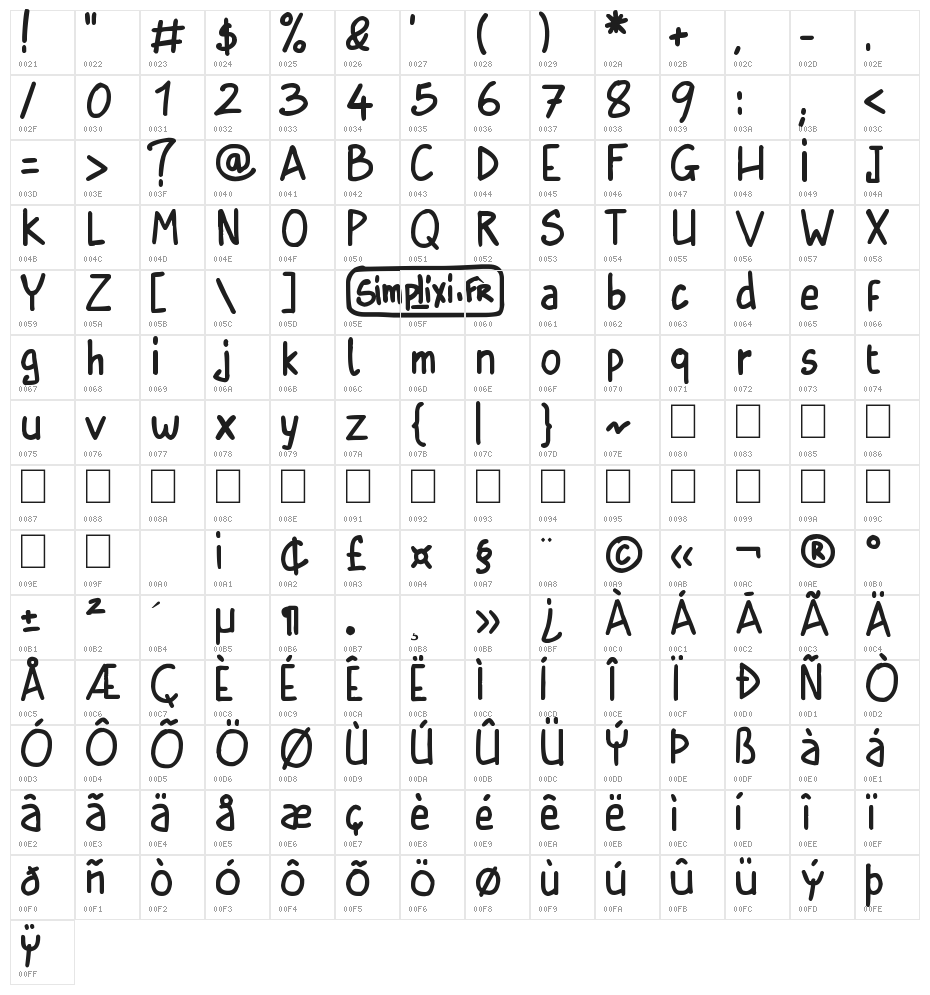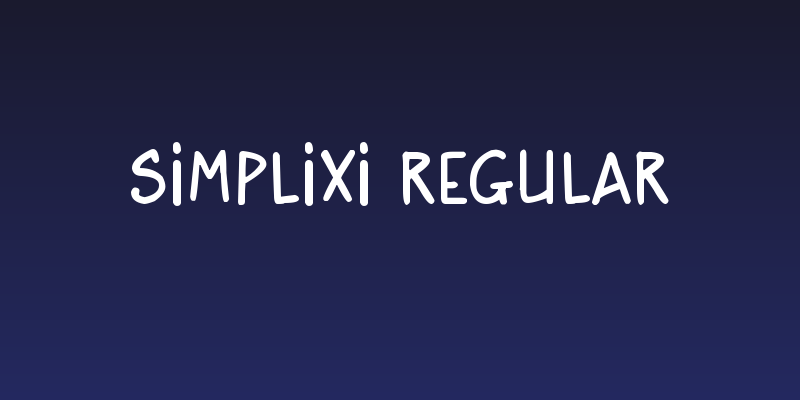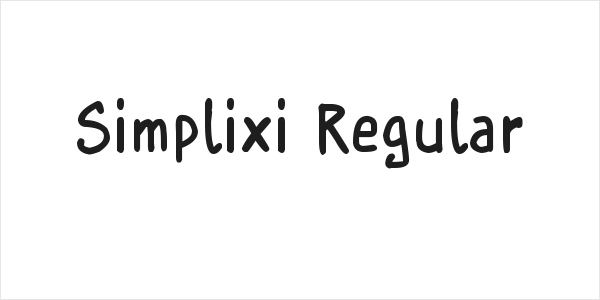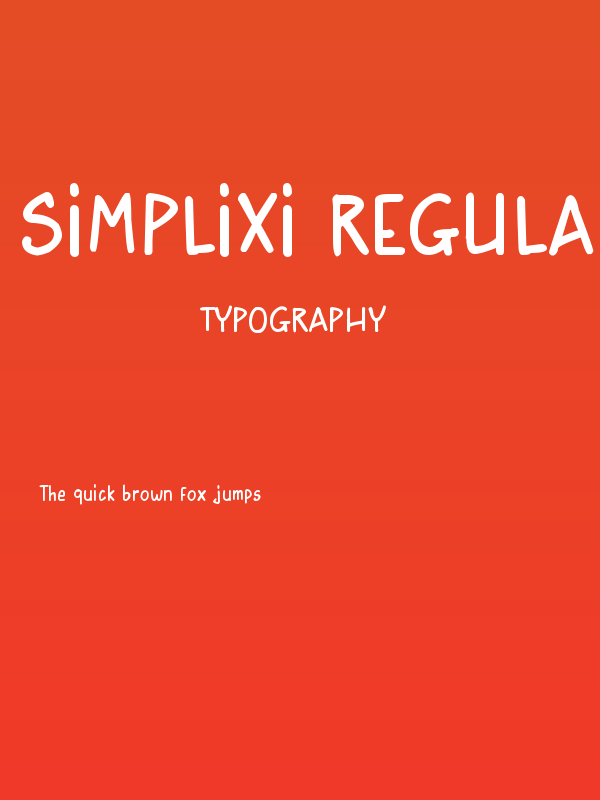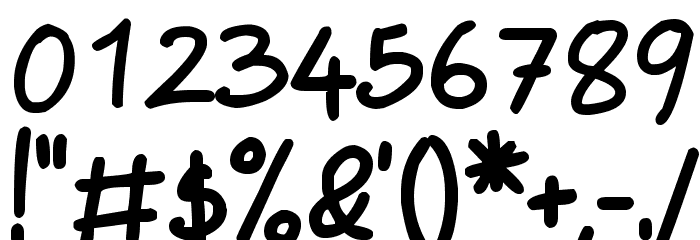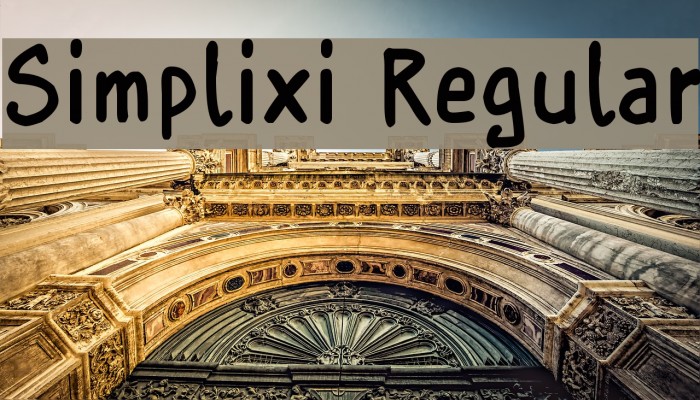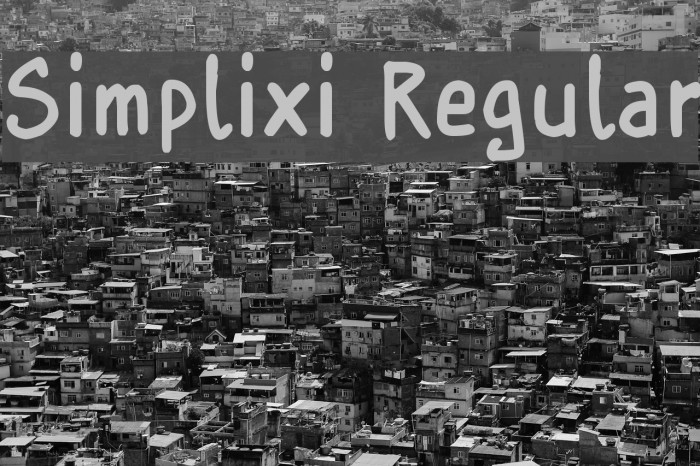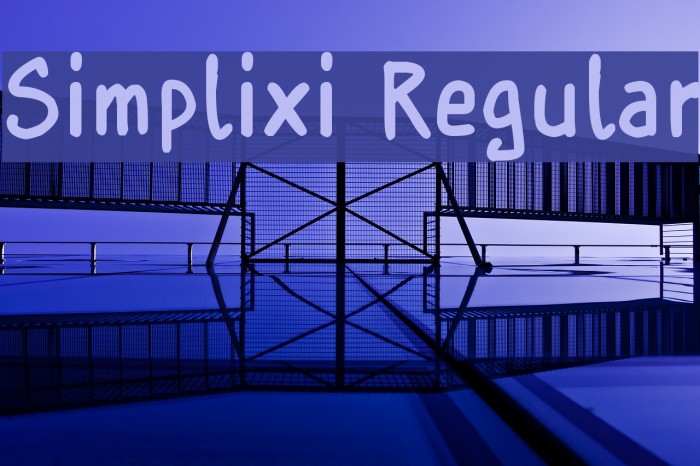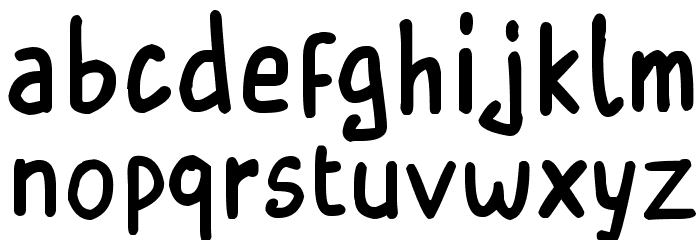
Simplixi Regular Font
Simplixi Regular Description
This font features a playful and casual handwritten style, characterized by its smooth, rounded edges and slightly irregular letterforms that give it a friendly and approachable appearance. The uppercase and lowercase letters maintain a consistent flow, with a slight slant that adds to its informal charm. The numerals and special characters are crafted with the same whimsical touch, making them blend seamlessly with the alphabet. The overall design is simple yet effective, making it suitable for projects that require a personal and human touch.
| Use Case | Headlines, Informal text, Branding |
| Proposed Projects | Ideal for greeting cards, children's books, casual invitations, and playful branding projects. |